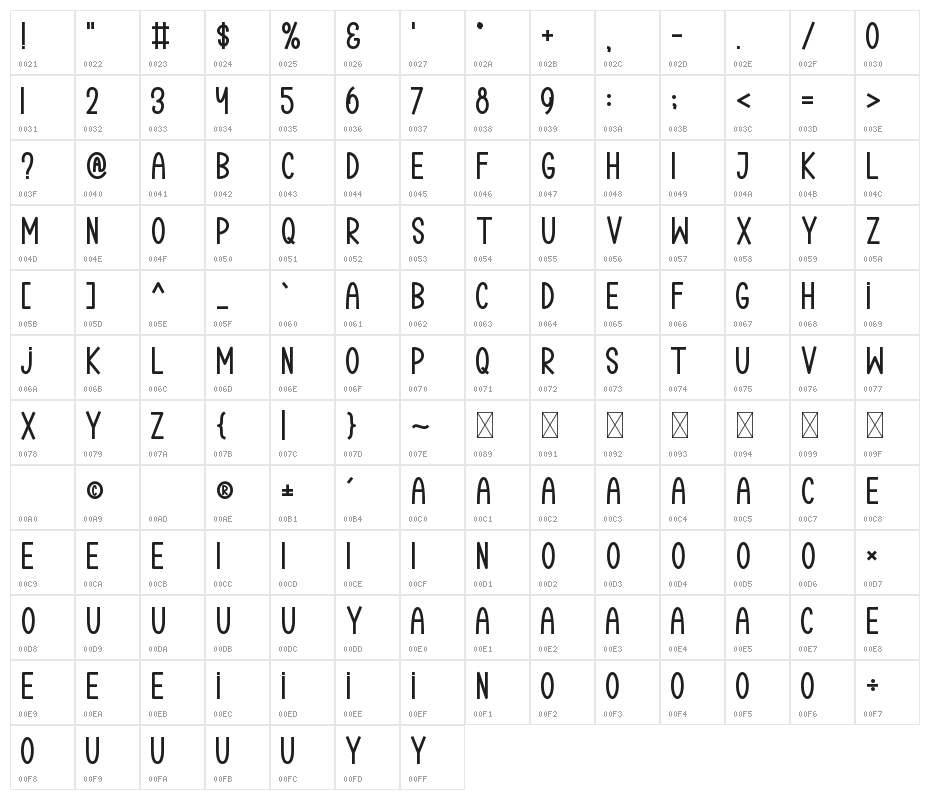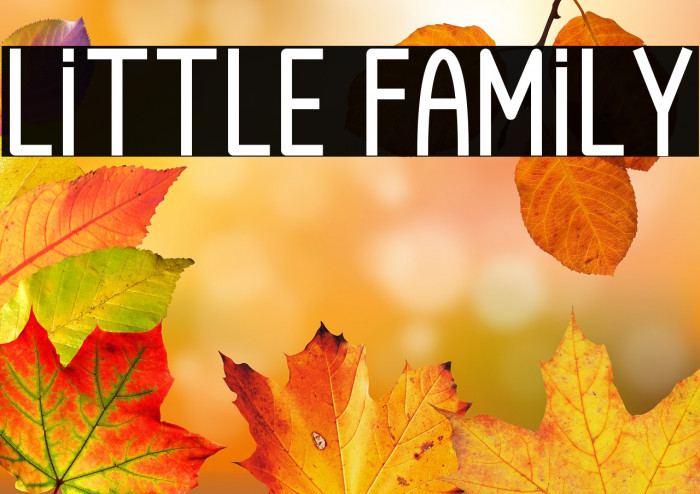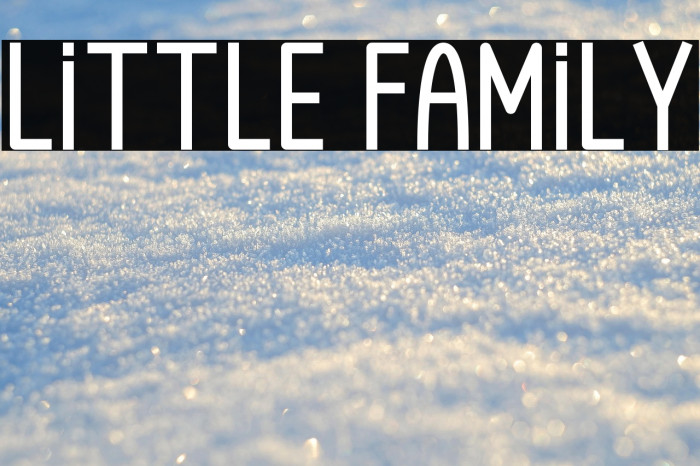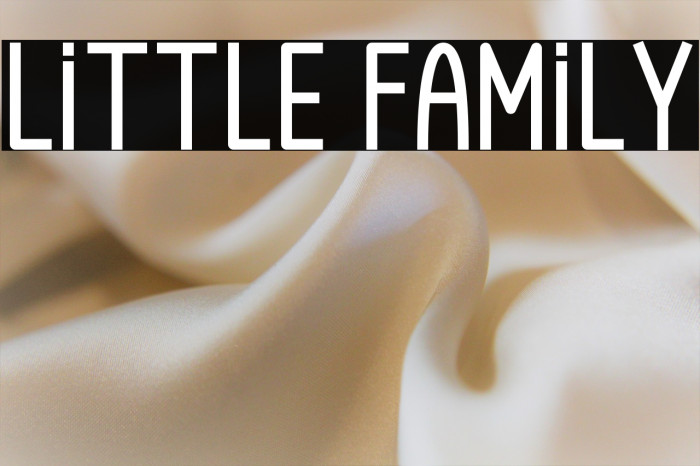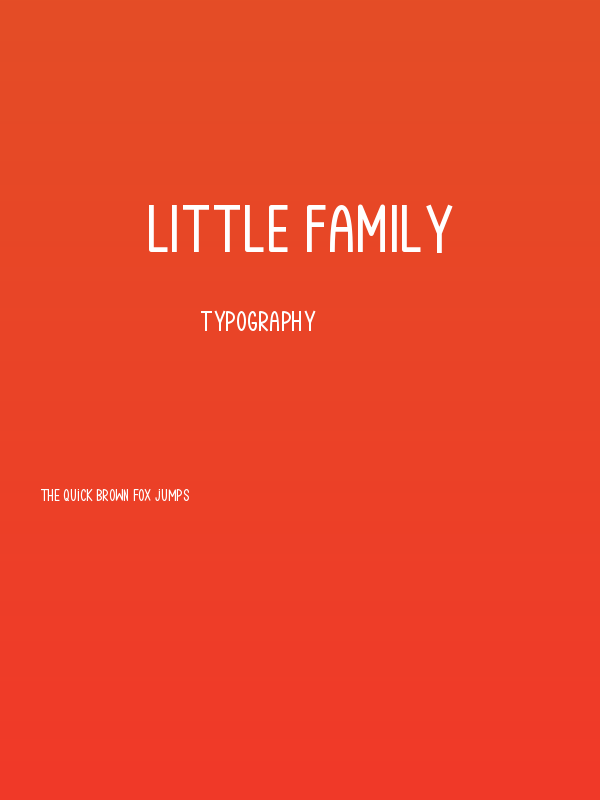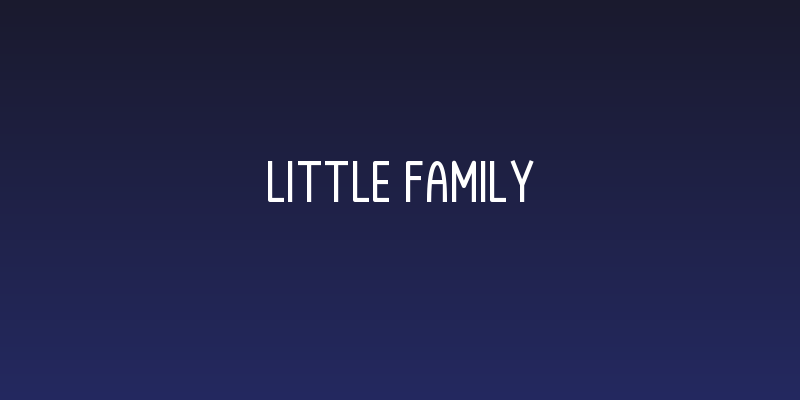
Little Family Font
Little Family Description
This font features a playful and informal style with rounded edges and a slightly condensed form. The characters are uniformly bold, giving them a strong presence while maintaining a friendly and approachable appearance. The uppercase and lowercase letters are well-proportioned, with a consistent stroke width that adds to the font's readability. The numerals and special characters are designed to match the overall aesthetic, ensuring a cohesive look across different types of content. This font's simplicity and charm make it suitable for a variety of creative projects.
| Width | Condensed |
| Overall Style | Playful |
| Proposed Projects | Ideal for children's books, playful branding, casual invitations, and social media graphics. |